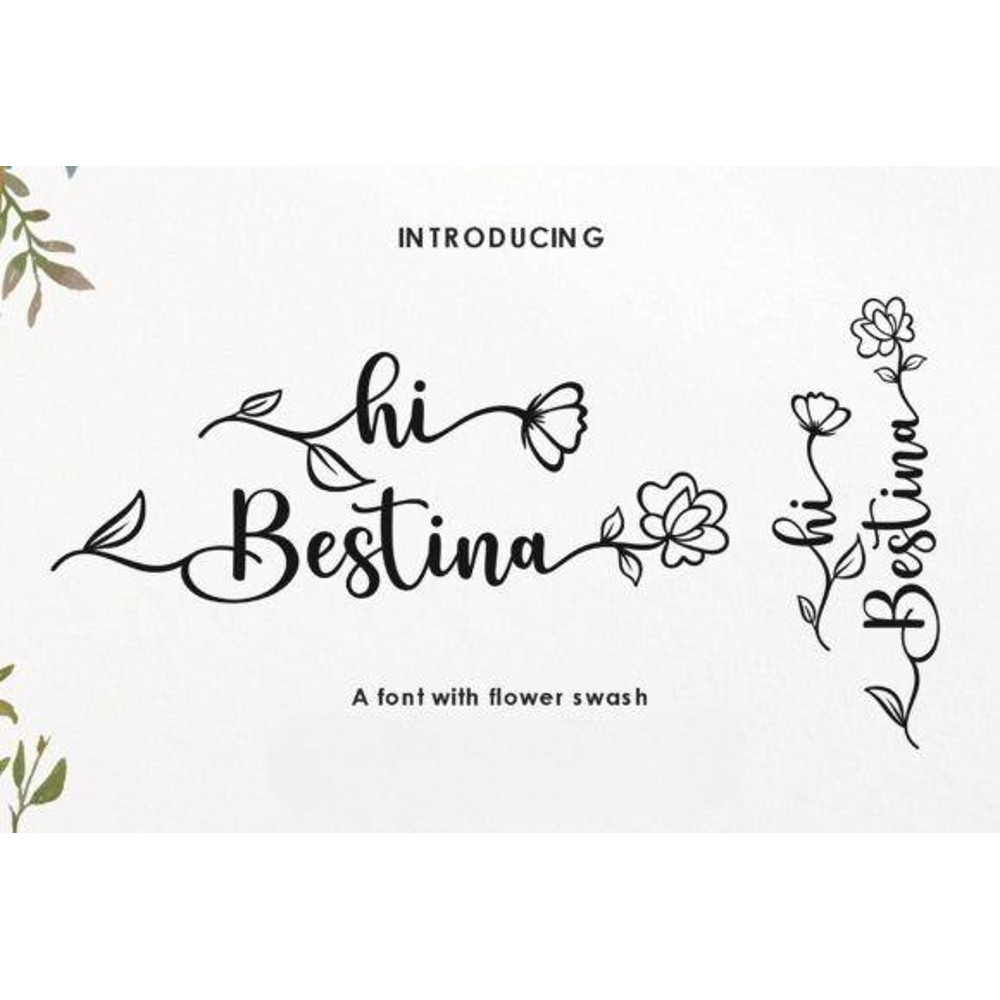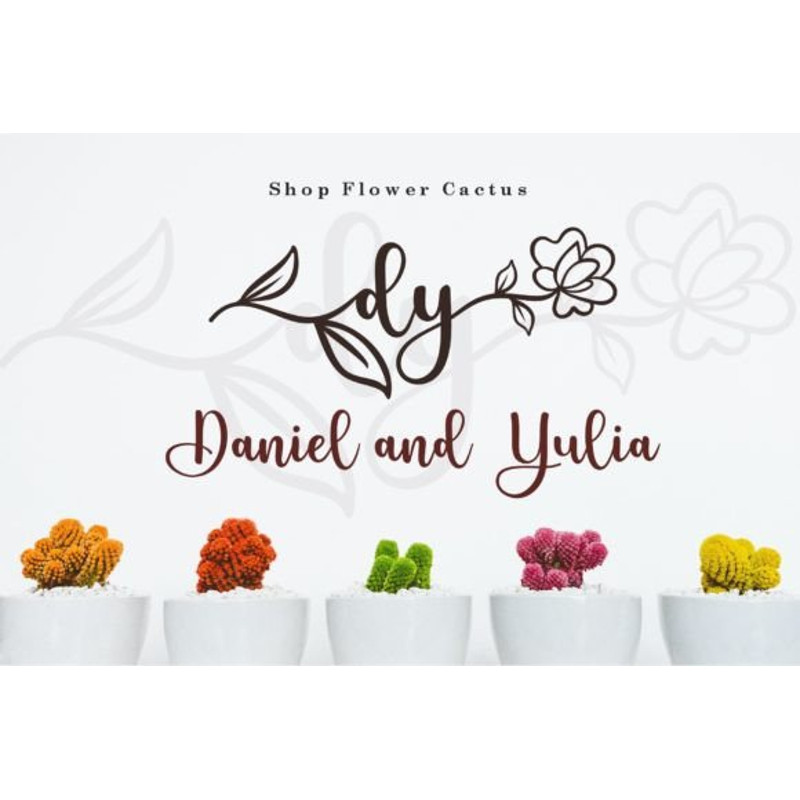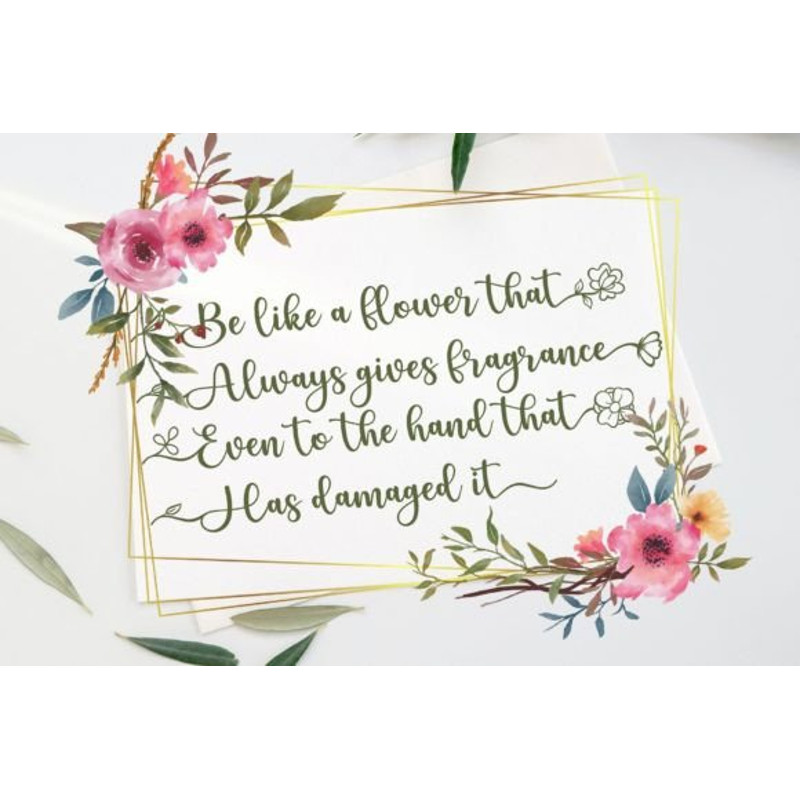
Hi Bestina Font
Hi Bestina is a handwritten decorative font adorned with leaves and flowers Cute and stylish, add it to any of your creative projects, and it will make them come alive!